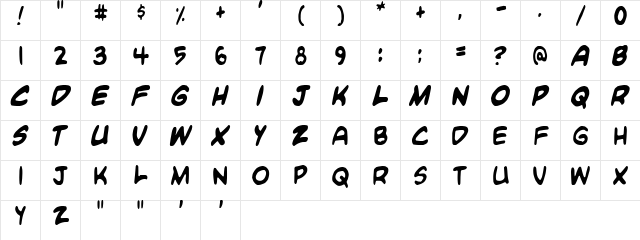
Blambot Custom Regular
Design Context for Blambot Custom
Blambot Custom is a composed and adaptable typeface that performs quietly and consistently across a wide range of design contexts.